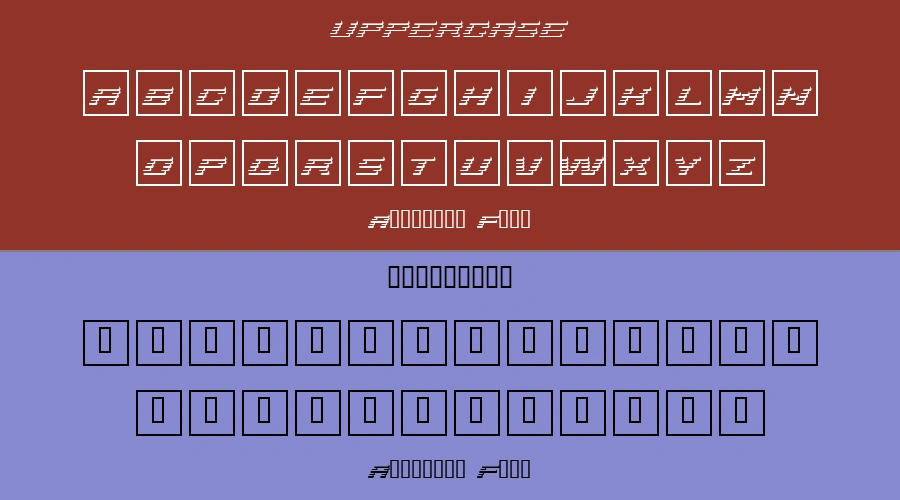
About Addshade Font
Designed with precision, Addshade Font merges harmonious shapes with typographic color in every character. This versatility makes it particularly effective for marketing materials, where longevity and consumer connection directly impact communication quality. Each letterform demonstrates meticulous craftsmanship.
Technical excellence shines through elements like refined proportions and arrow sets, enhancing typographic versatility. In pull quotes settings, Addshade Font proves its worth through superior file optimization. The thoughtful execution of joint detail and market positioning ensures professional results.